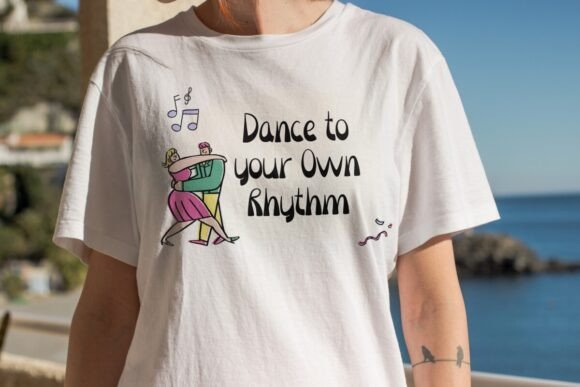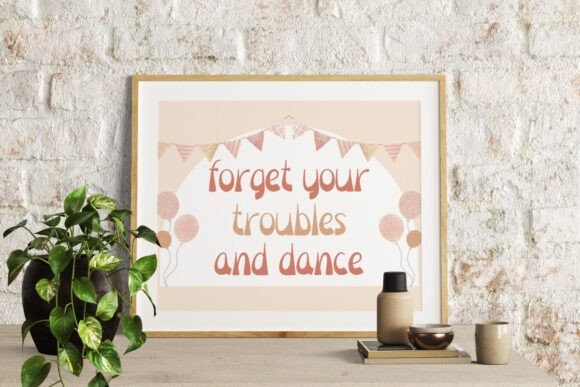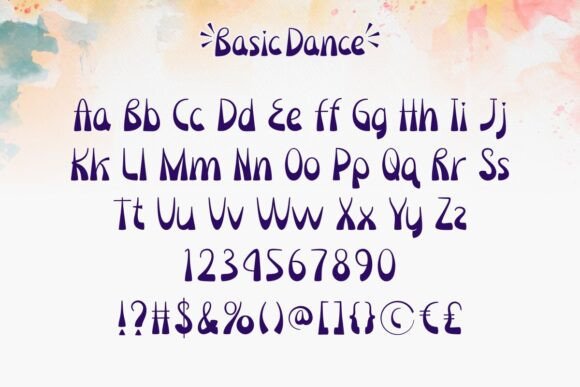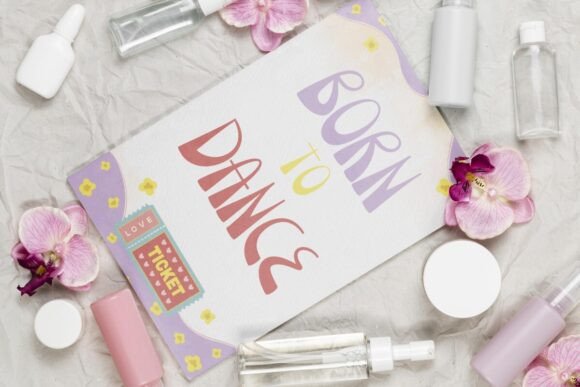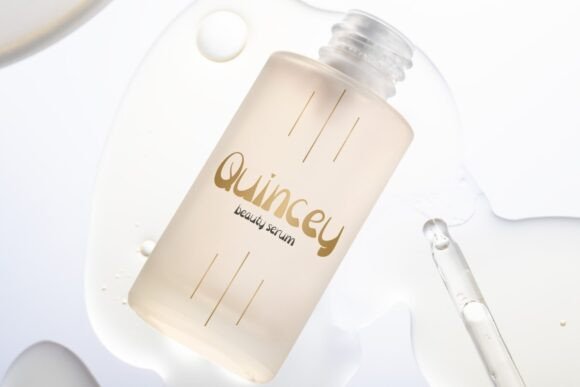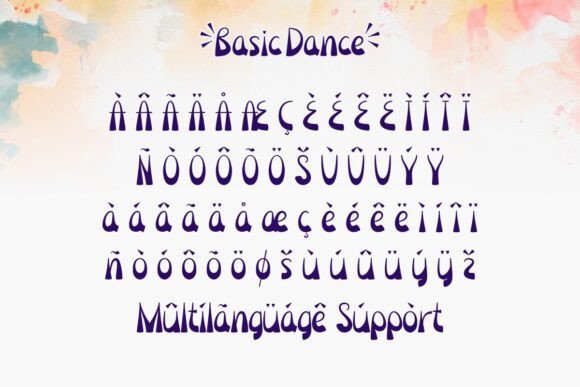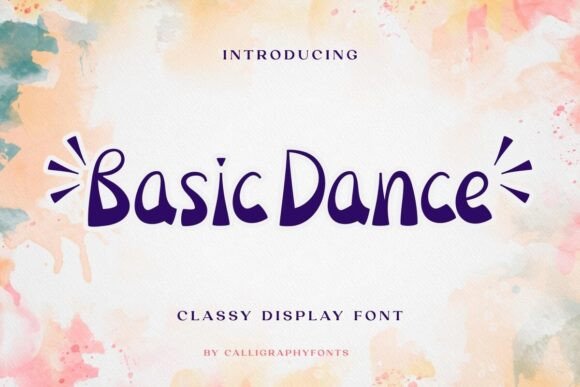
Introducing Basic Dance Font: The Ultimate Display Font for Friendly Designs
Are you tired of using fonts that are too formal or too boring for your designs? Look no further than the Basic Dance font, a childish and easy-to-read display font that’s perfect for adding a touch of friendliness to your projects. In this article, we’ll explore the features and benefits of Basic Dance, and why it’s about to become your go-to font for all your design needs.
The Personality of Basic Dance Font
Basic Dance is a font that exudes impeccable friendliness. Its childish and playful design makes it perfect for projects that require a lighthearted and approachable tone. Whether you’re creating crafts, digital designs, presentations, or greeting cards, Basic Dance is sure to bring a smile to your audience’s faces. The font’s friendly demeanor makes it an excellent choice for designers and crafters who want to create engaging and relatable content.
One of the best things about Basic Dance is its versatility. This font can be used for a wide range of projects, from fun and playful crafts to more professional digital designs. Its easy-to-read design makes it perfect for presentations, posters, and flyers, while its friendly tone makes it suitable for greeting cards, invitations, and other personal projects. Whether you’re a designer, crafter, or DIY enthusiast, Basic Dance is a font that can adapt to your needs.
Why Basic Dance Stands Out
So, what sets Basic Dance apart from other fonts? Here are a few reasons why this font is about to become your new favorite:
• Easy to Read: Basic Dance is designed to be easy to read, even at larger sizes. This makes it perfect for headlines, titles, and other display text.
• Childish and Playful: The font’s childish design gives it a playful and fun tone that’s perfect for projects that require a lighthearted approach.
• Versatile: Basic Dance can be used for a wide range of projects, from crafts to digital designs.
• Friendly: The font’s friendly demeanor makes it perfect for projects that require a personal touch.
Using Basic Dance in Your Designs
So, how can you use Basic Dance in your designs? Here are a few ideas to get you started:
• Crafts: Use Basic Dance to add a personal touch to your crafts, such as scrapbooking, card making, and DIY projects.
• Digital Designs: Use Basic Dance to create engaging and relatable digital designs, such as social media graphics, blog posts, and website headers.
• Presentations: Use Basic Dance to add a touch of friendliness to your presentations, making them more engaging and memorable.
• Greeting Cards: Use Basic Dance to create personalized and fun greeting cards for special occasions.
Tips for Getting the Most Out of Basic Dance
Here are a few tips for getting the most out of Basic Dance:
• Experiment with Sizes: Basic Dance looks great at a range of sizes, so don’t be afraid to experiment to find the perfect size for your project.
• Pair with Other Fonts: Basic Dance pairs well with other fonts, so try combining it with a serif or script font to add contrast and interest to your design.
• Use it Consistently: Use Basic Dance consistently throughout your project to create a cohesive and recognizable brand.
In conclusion, Basic Dance is a font that’s sure to become your go-to for all your design needs. Its childish and easy-to-read design makes it perfect for adding a touch of friendliness to your projects, while its versatility makes it suitable for a wide range of applications. Whether you’re a designer, crafter, or DIY enthusiast, Basic Dance is a font that’s sure to bring a smile to your audience’s faces. So why not give it a try and see the difference it can make in your designs?